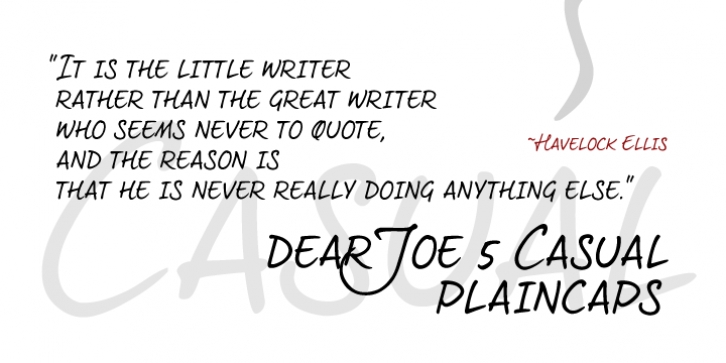
dearJoe 5 Casual downloadDesigner: Jeroen “Joebob” van der Ham
Publisher: JOEBOB graphics
This is the last version of the dearJoe 5 series; dearJoe 5 Casual.
It occurred to me that the dearJoe 5 font lacked a sober, simple and casual style, and so I decided to create just that and also to make it cheaper than the regular version since it features no alternate characters.
This font can be used together with the other versions which gives you endless variation possibilities in suggesting actual handwriting.